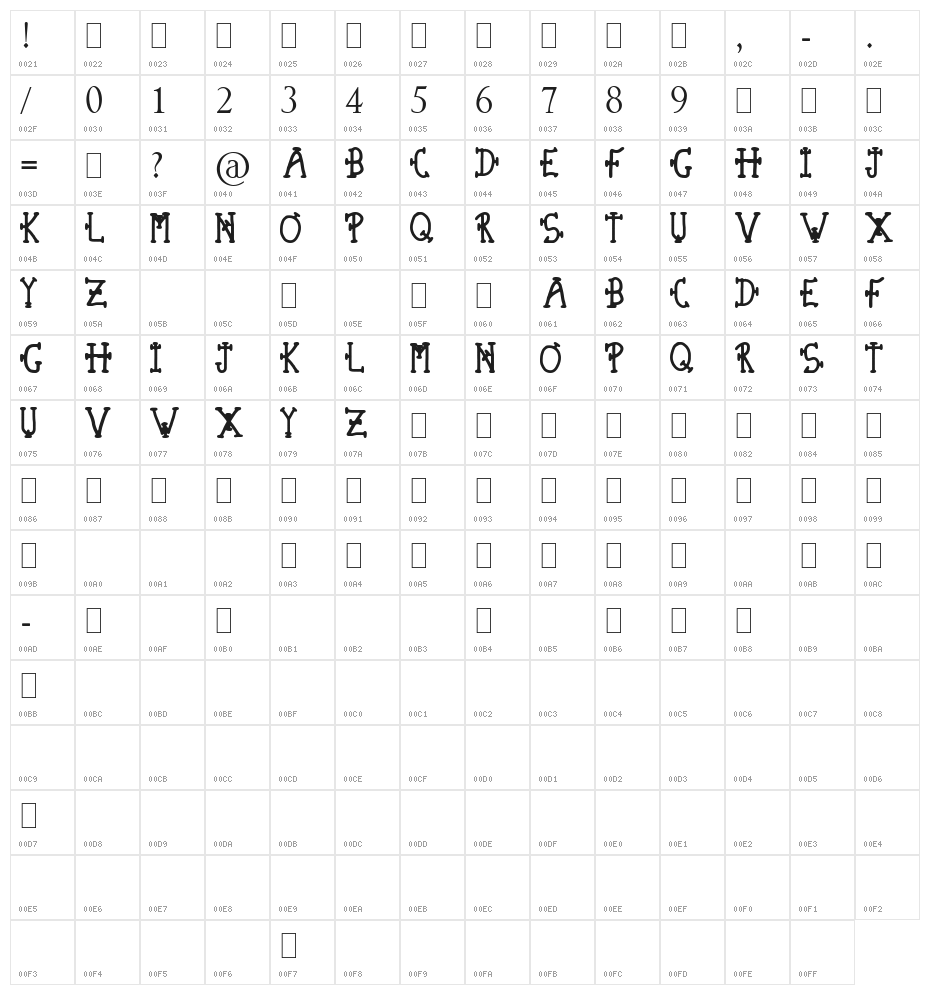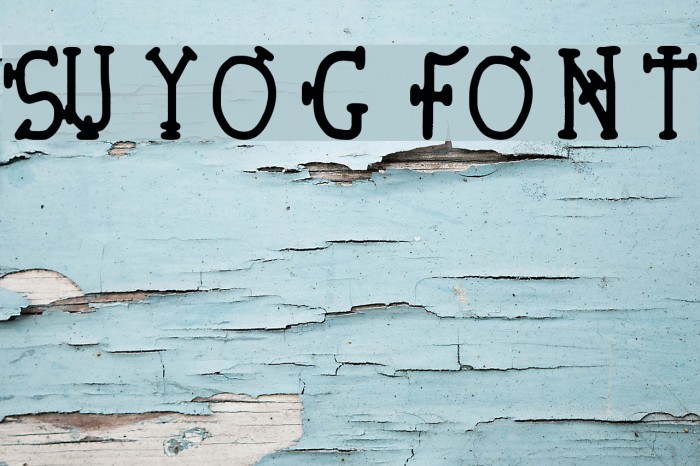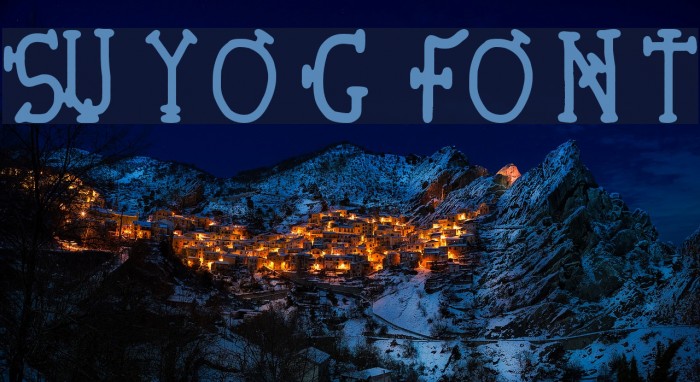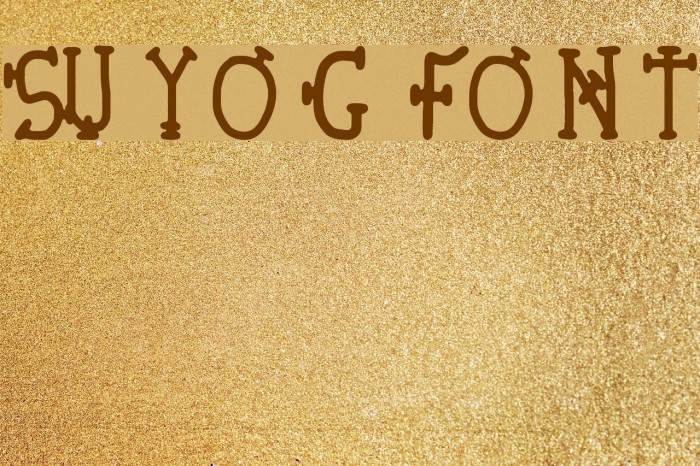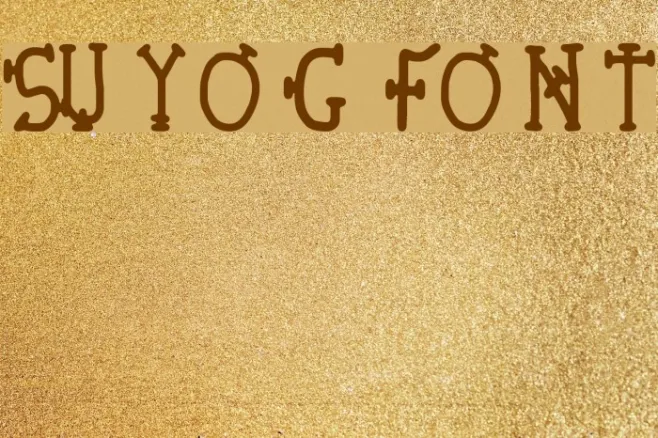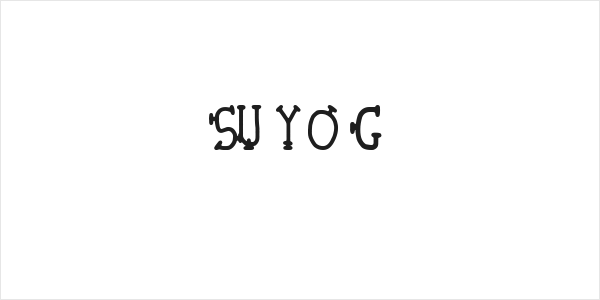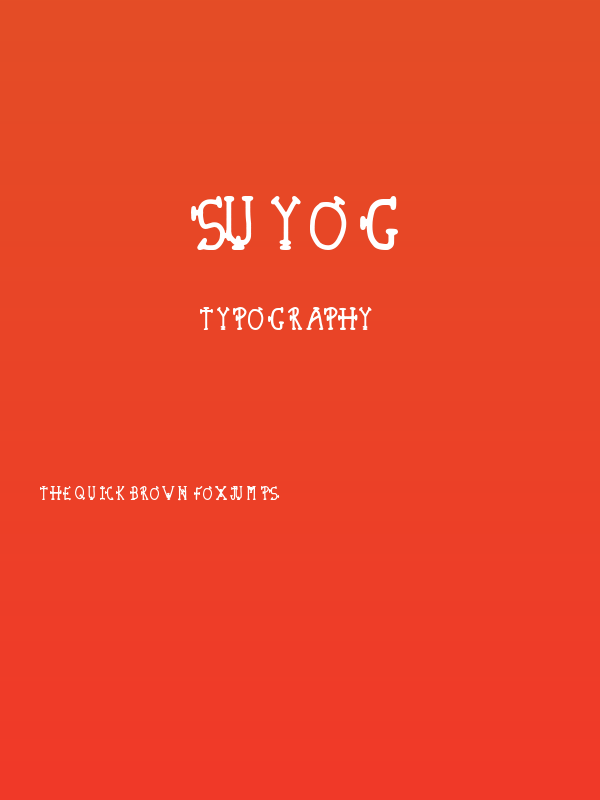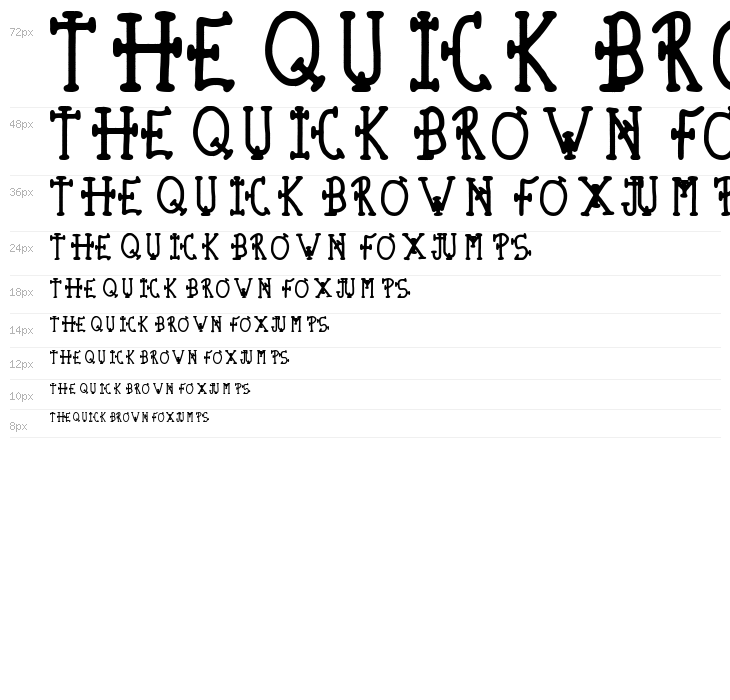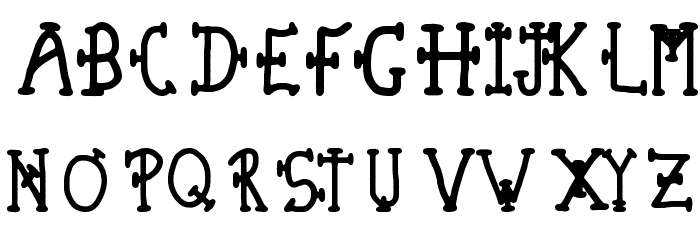
Suyog Font
Suyog Description
This font features a unique and decorative style with distinct, playful elements. Each character is adorned with circular embellishments at the ends of strokes, giving it a whimsical and artistic appearance. The uppercase letters are bold and prominent, while the lowercase letters maintain a consistent style, ensuring readability. The numbers are clear and well-defined, matching the overall aesthetic. Special characters are included, adding versatility to the font. This design is perfect for creative projects that require a touch of flair and individuality.